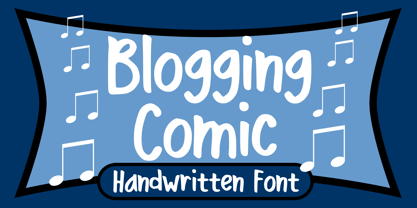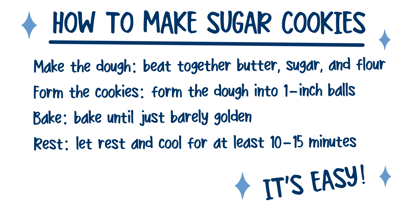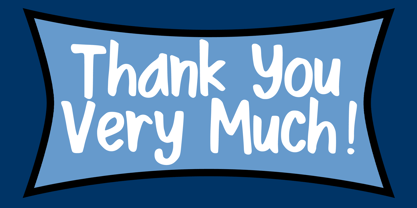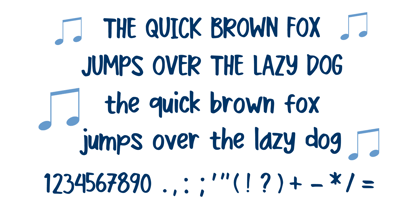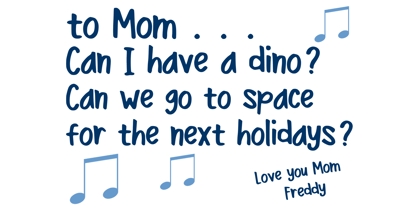
Blogging Comic
by Mvmet
The Blogging Comic Font Family was designed by Gabriel Valentinus and published by Mvmet. Blogging Comic contains 1 styles.
Blogging Comic is a fun and versatile spontaneous handwritten font. You can use it for anything ranging from t-shirts and clothing, for your book designs, street art needs, greeting cards, stickers, posters, banners, or anything that needs a bold and fun touch. Try it to create fabulous designs and feel the fun and cheering vibes with it!